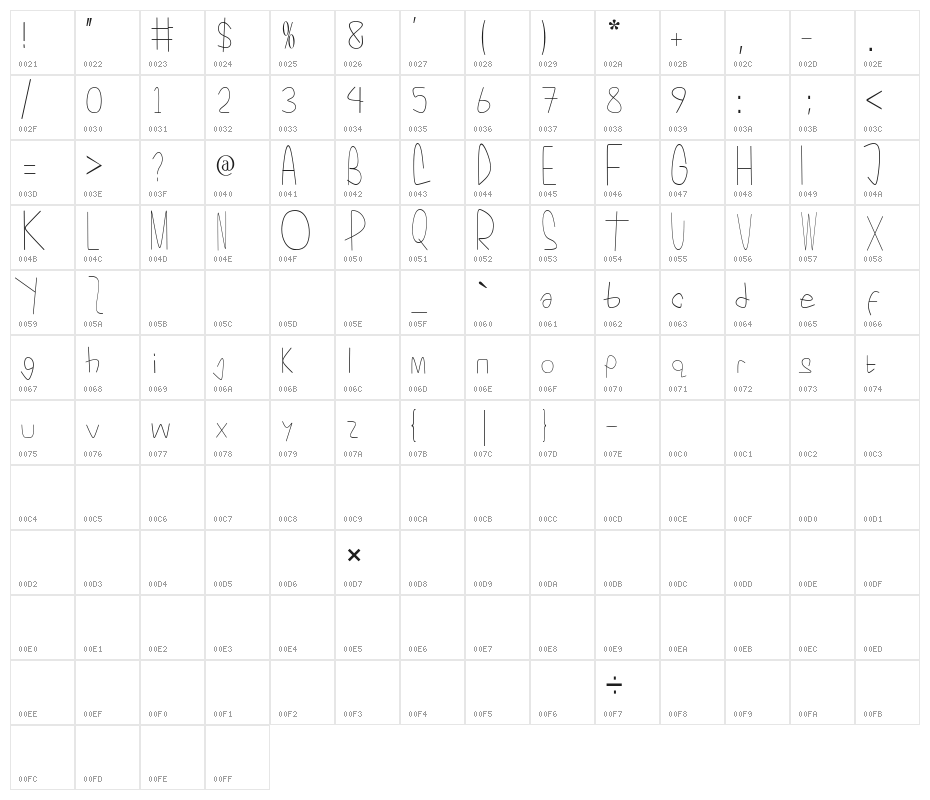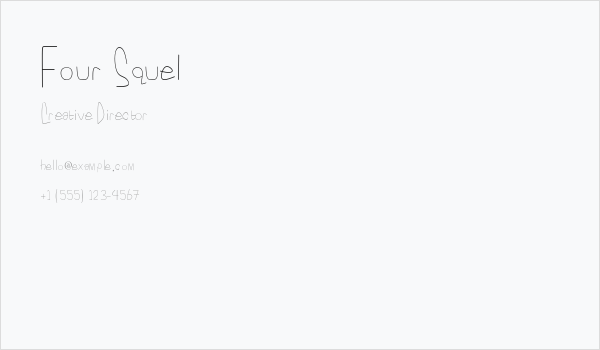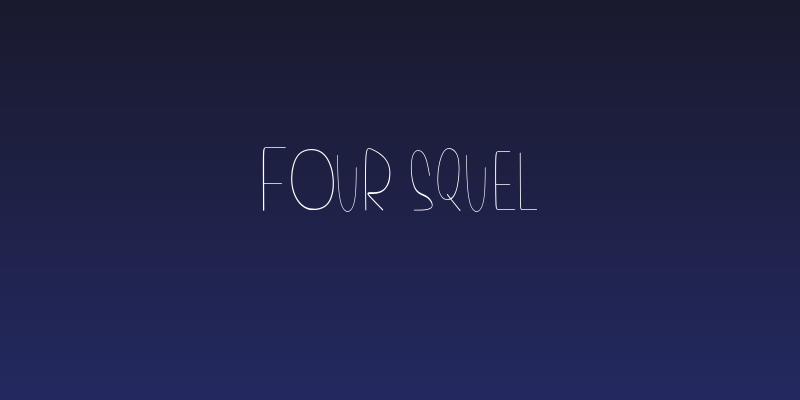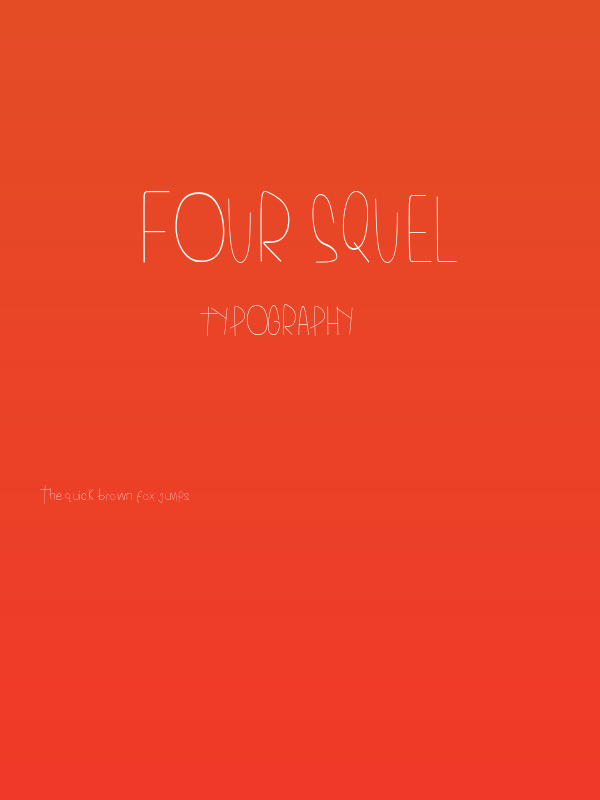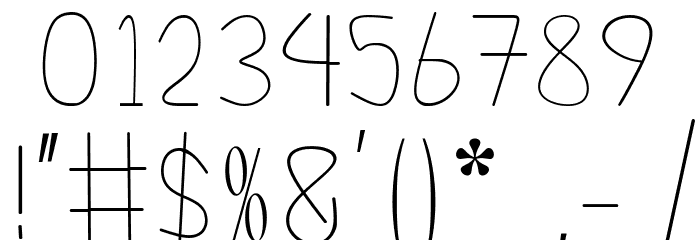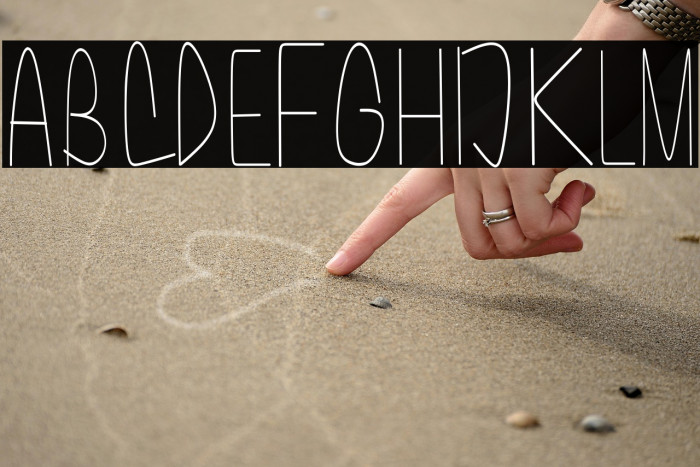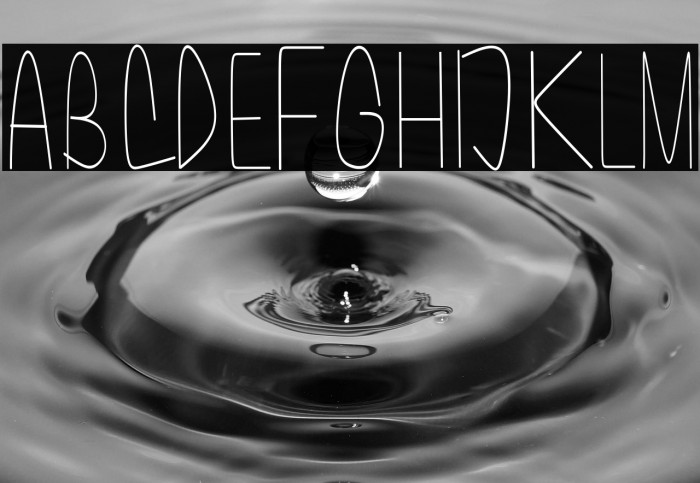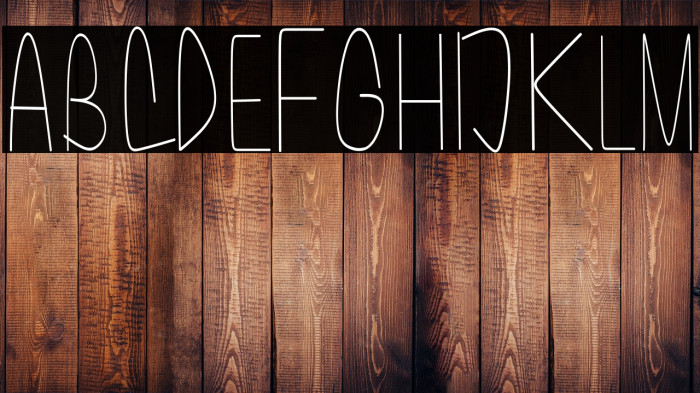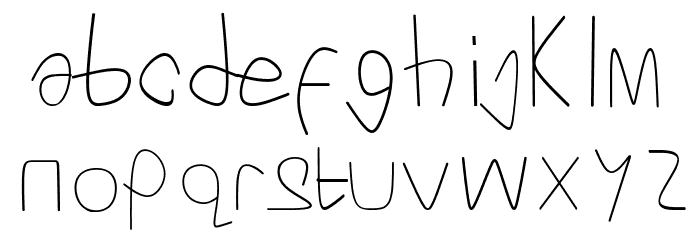
Four Squel Font
Four Squel Description
This font features a playful and whimsical design with tall, narrow characters that have a hand-drawn appearance. The strokes are thin and consistent, giving it a light and airy feel. The uppercase letters are particularly elongated, while the lowercase letters maintain a more rounded and compact form. The numbers and special characters follow the same thin, delicate style, adding to the overall cohesive look. This font's unique style makes it stand out, offering a modern yet quirky aesthetic that is both approachable and artistic.
| Overall Style | Whimsical |
| Proposed Projects | Ideal for children's books, creative posters, playful branding, and artistic invitations. |